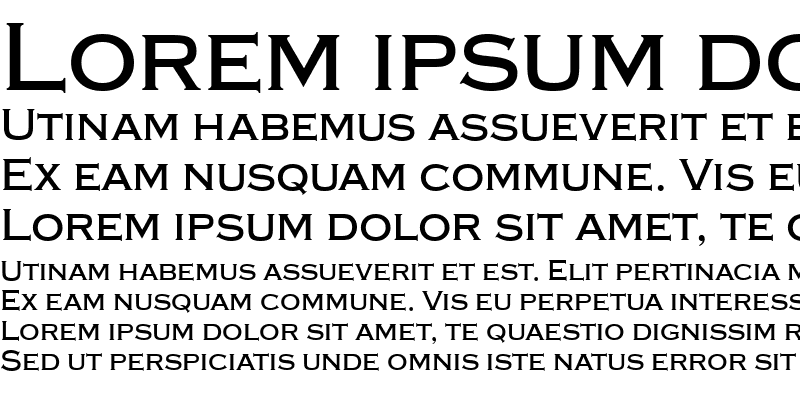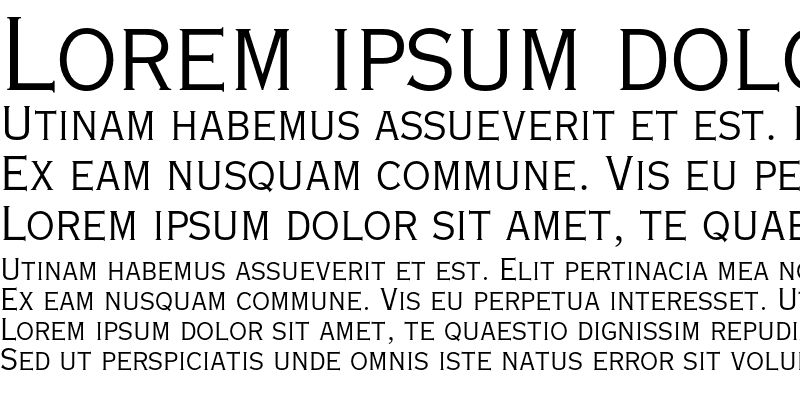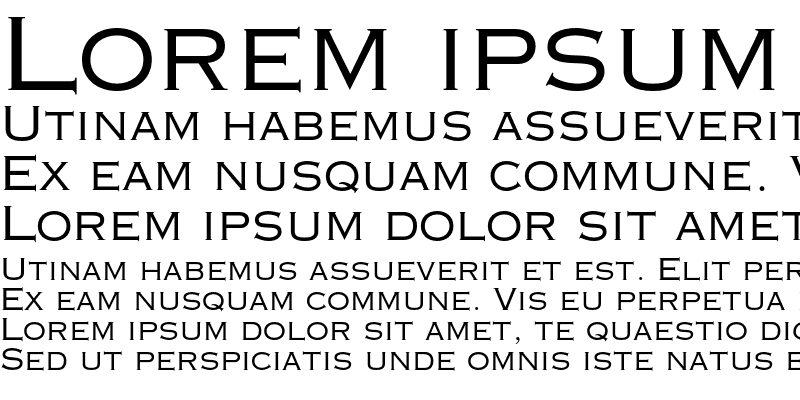
Tiny Serifs Lend Copperplate Gothic A Unique Feel.
Copperplate gothic is an all caps font which looks like a sans serif at first glance. Free fonts often have not all characters and signs, and have no kerning pairs (avenue ↔ a venue, tea ↔ t ea). Here at fontspace.io, we are providing this copperplate font and the whole font family for free and you can download it for free.
Let’s Start With The Introduction Of A New Advanced Typeface That Is Belonging To The Serif Typeface And Is Known As Copperplate Gothic Font.
You Can Use The Copperplate Gothic To Create Interesting Designs, Covers, Shop And Store Name And Logos.